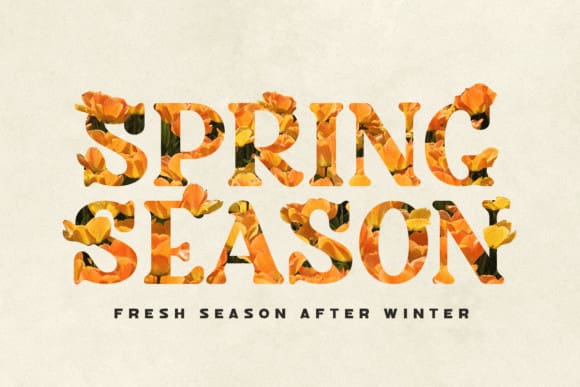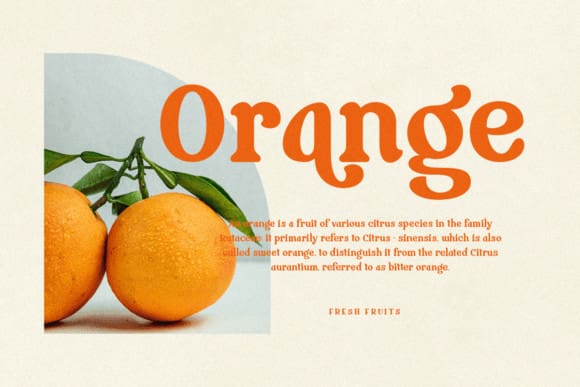
Kamal Font
Kamal Font: a fun, retro display font that channels the vibrant energy of yesteryears. With bold, chunky letterforms and quirky embellishments, it’s perfect for eye-catching headlines, posters, and branding with a nostalgic twist. Add a dose of playful nostalgia to your designs with Kamal!